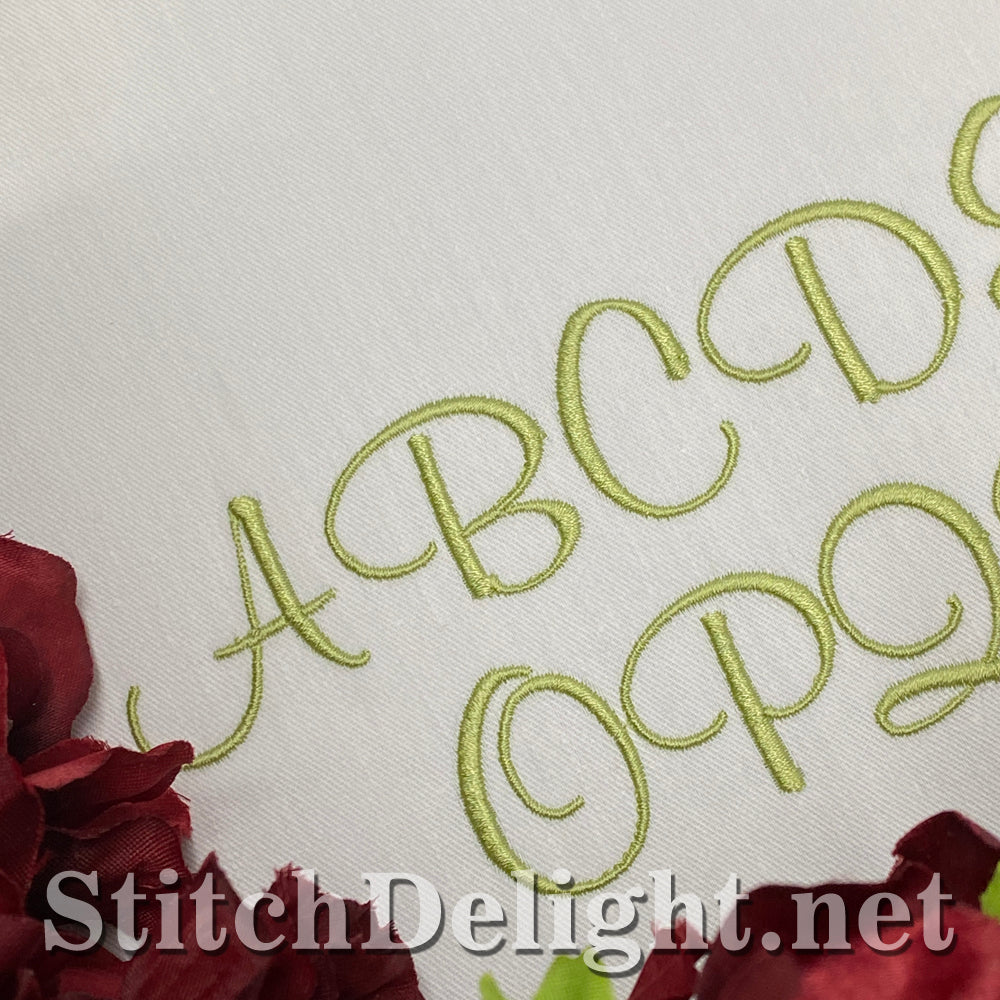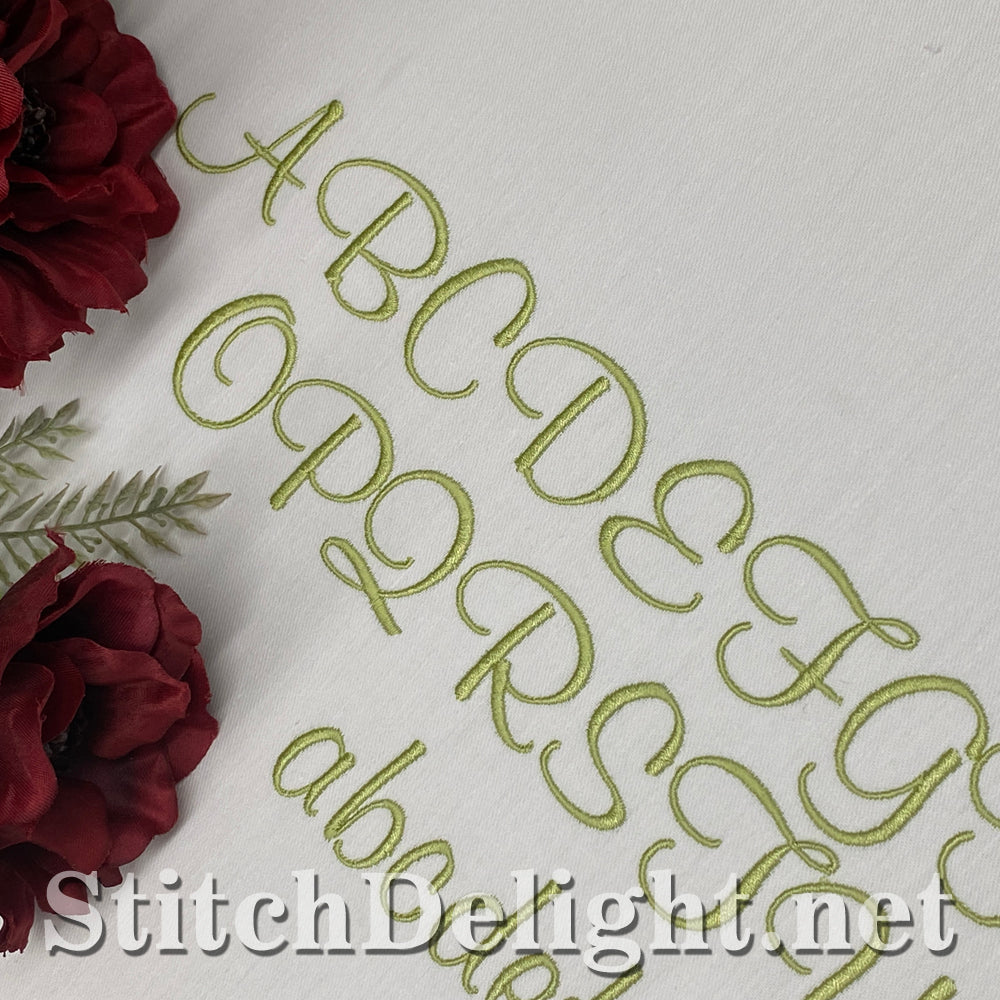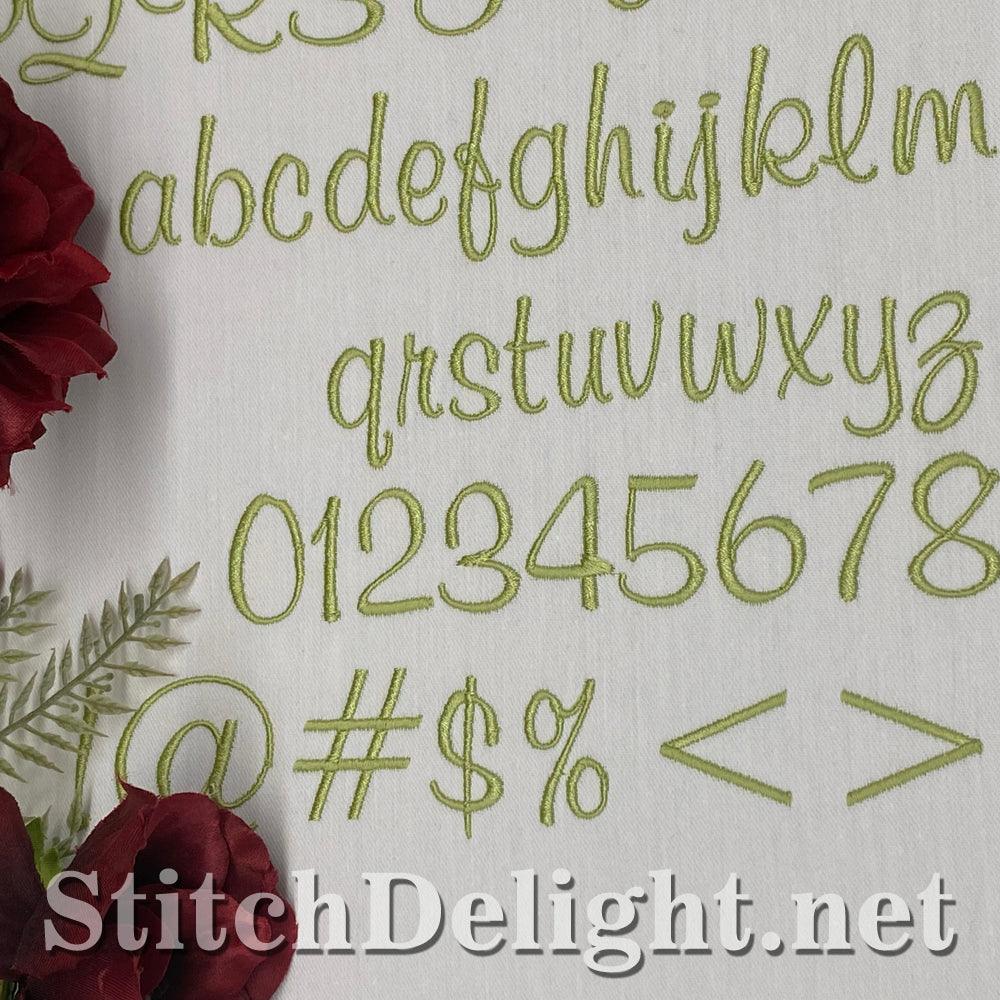
This font has an average height of 0.6"(lowercase) and 1.5"(uppercase) - Checkout SDS5407 for a stitched example where we used the font on towels as a wedding gift.